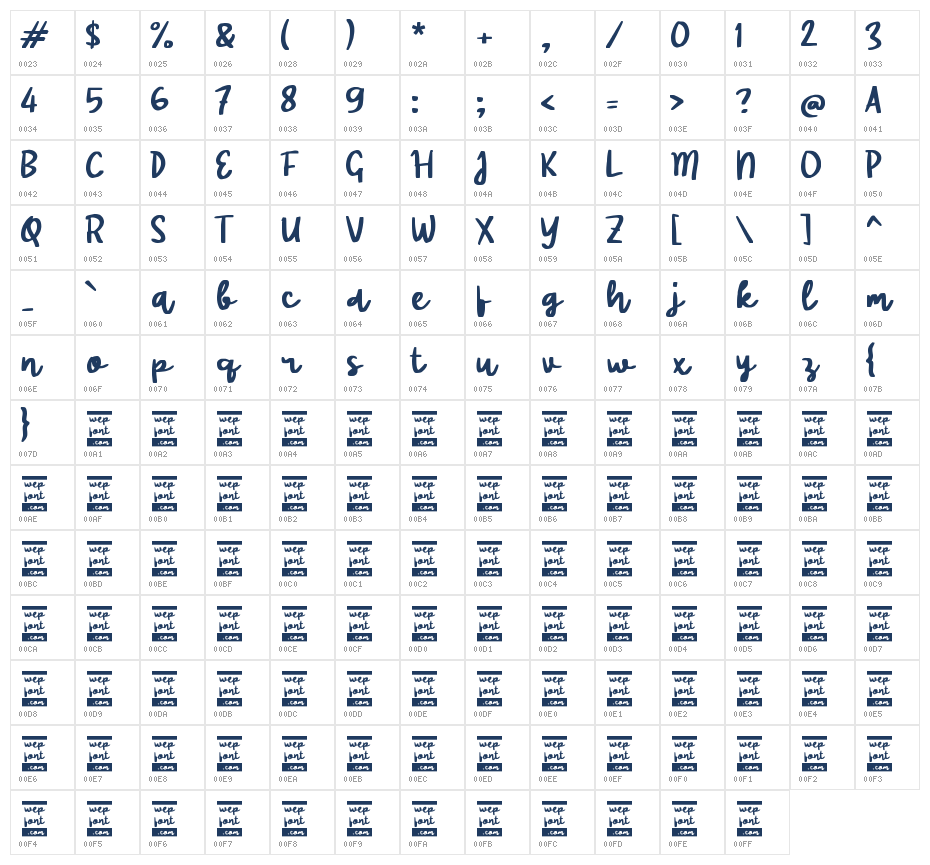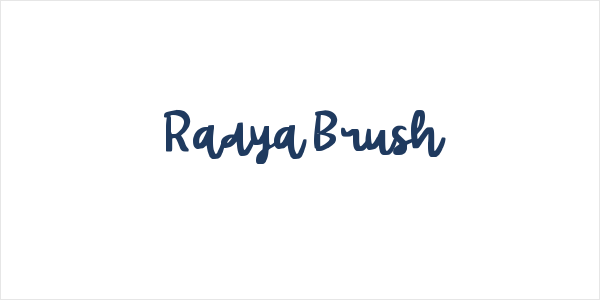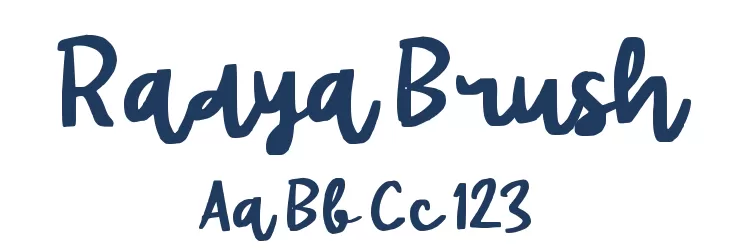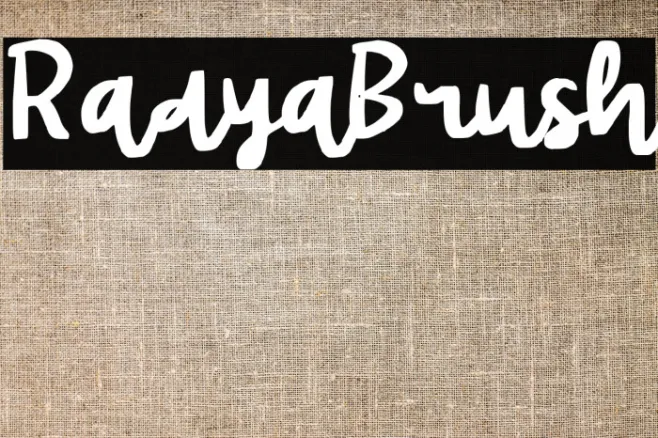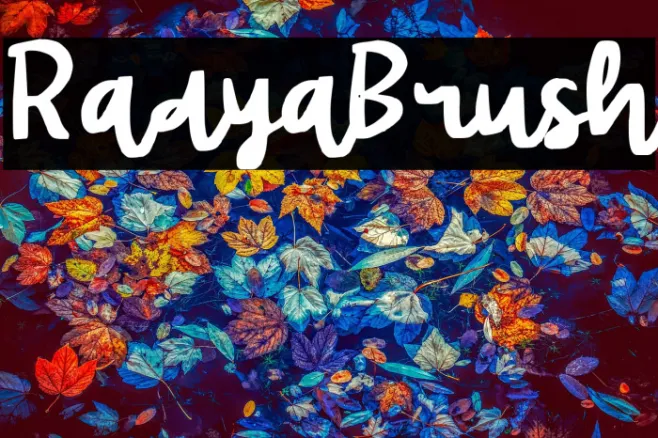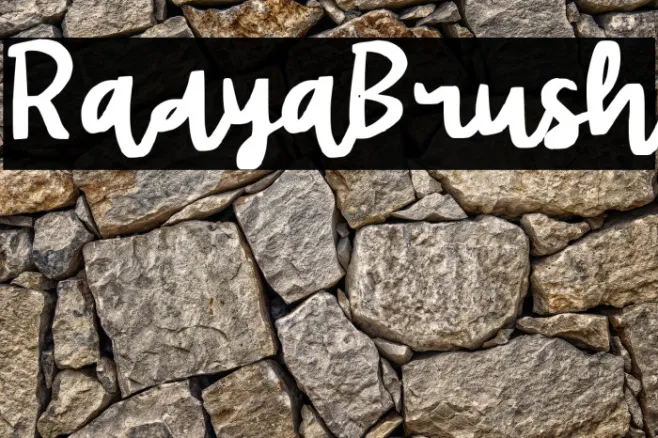
Radya Brush Font
Radya Brush Description
A playful, handwritten style font with a casual and friendly appearance, featuring slightly irregular strokes and a smooth flow.
| Overall Style | Casual, Friendly, Playful |
| Use Case | Headlines, Body text, Invitations, Greeting cards |